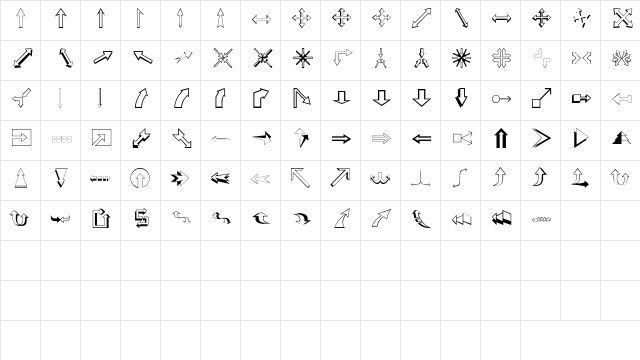
DexisDingbatsFiveSSi Regular Font Preview
DexisDingbatsFiveSSi Regular
Design Context for DexisDingbatsFiveSSi Typeface
DexisDingbatsFiveSSi is a composed and adaptable typeface that performs quietly and consistently across a wide range of design contexts.